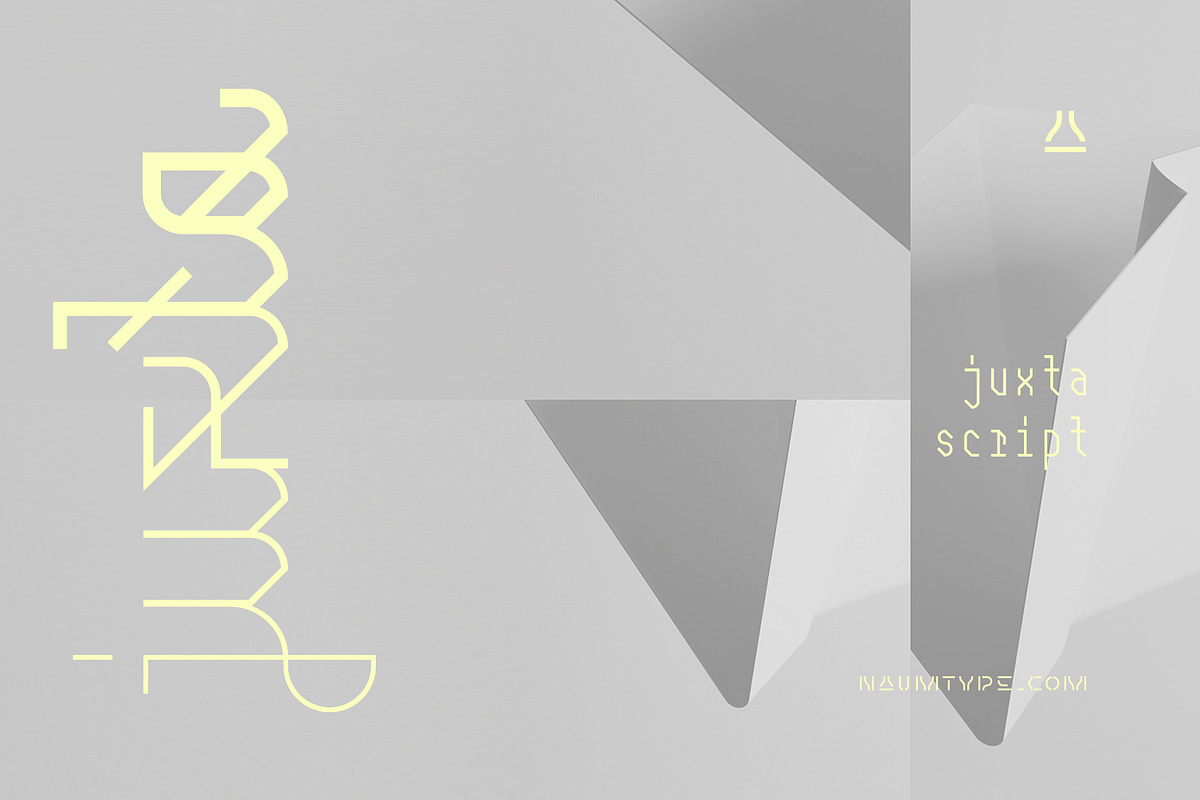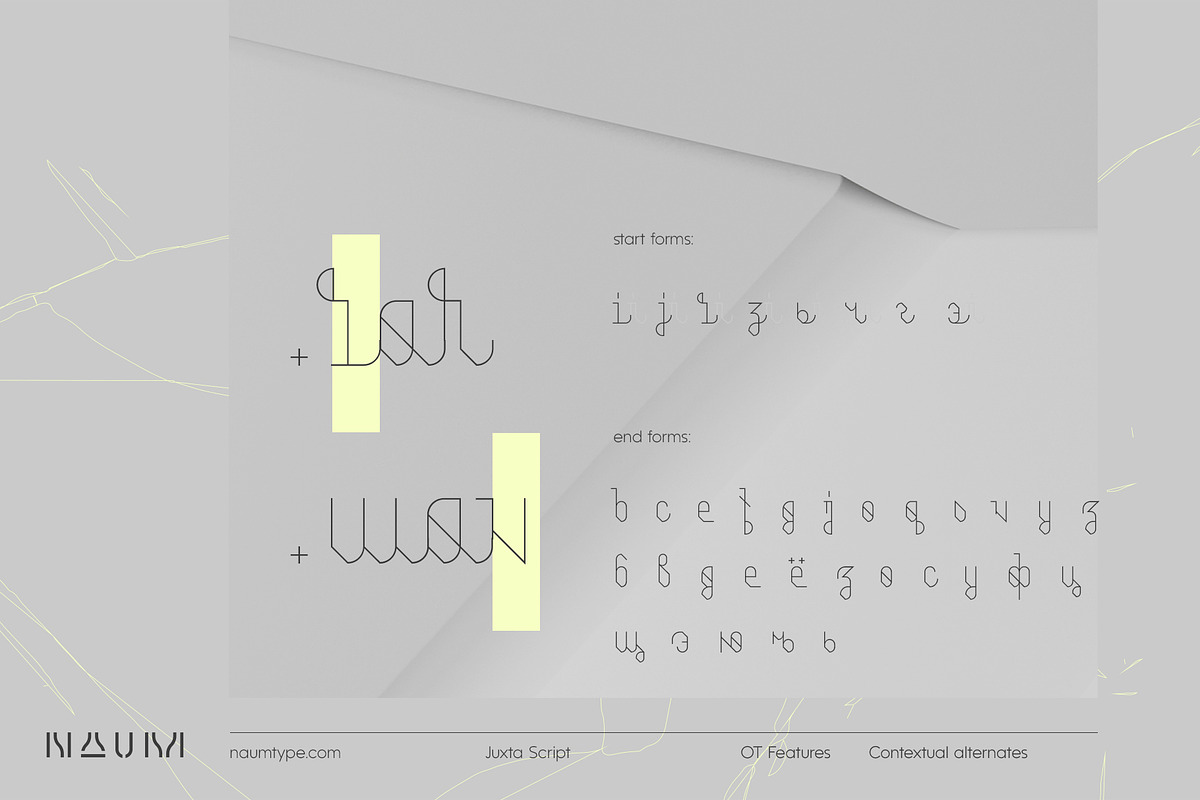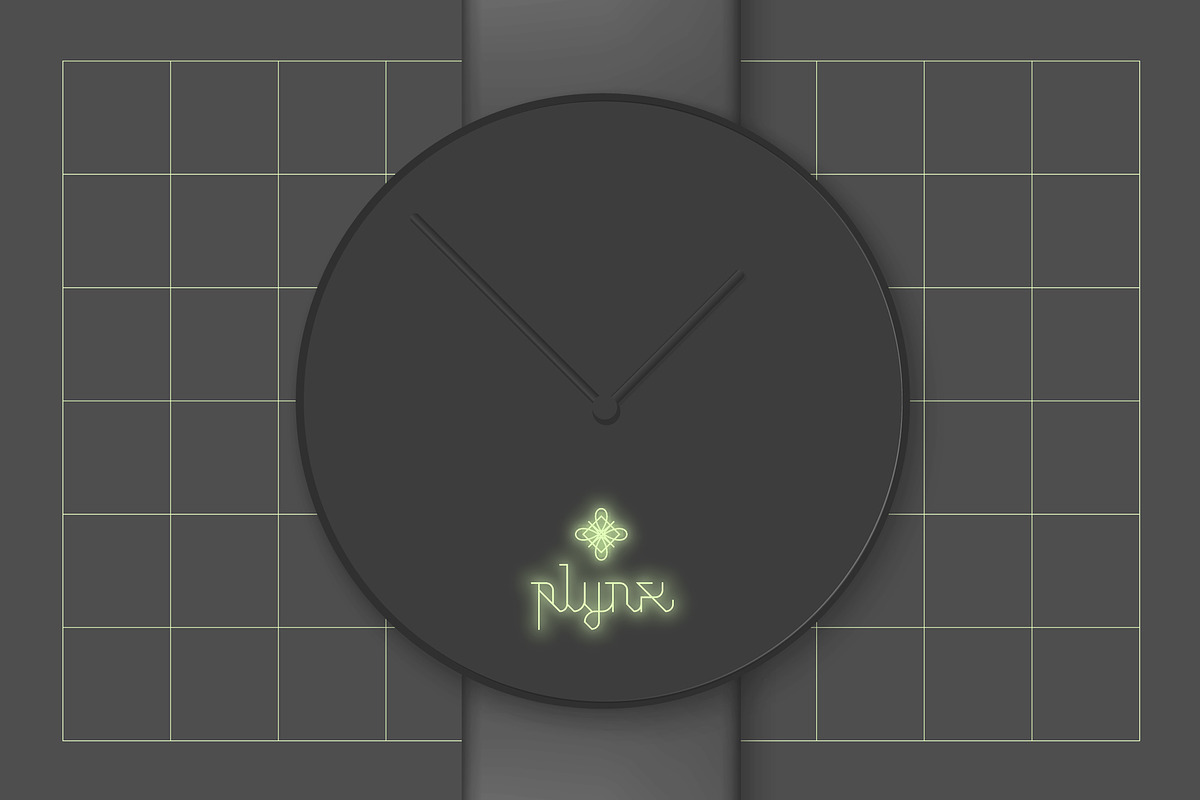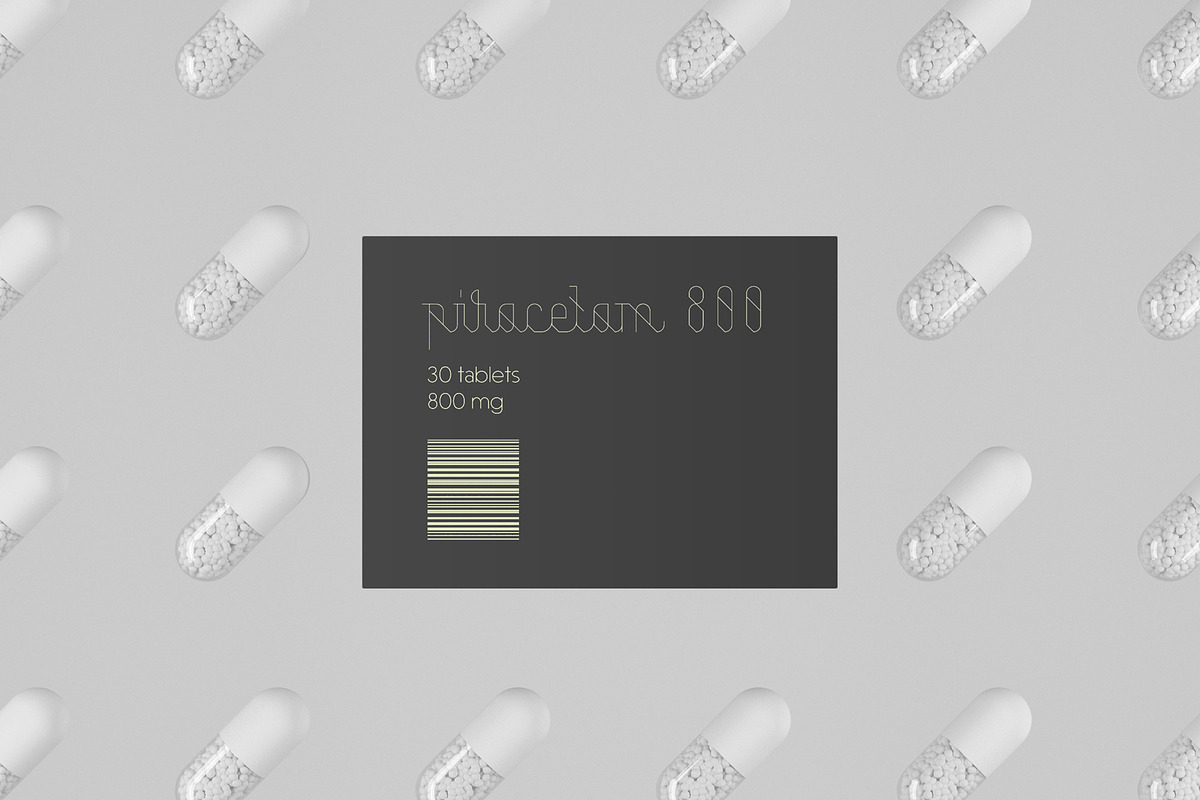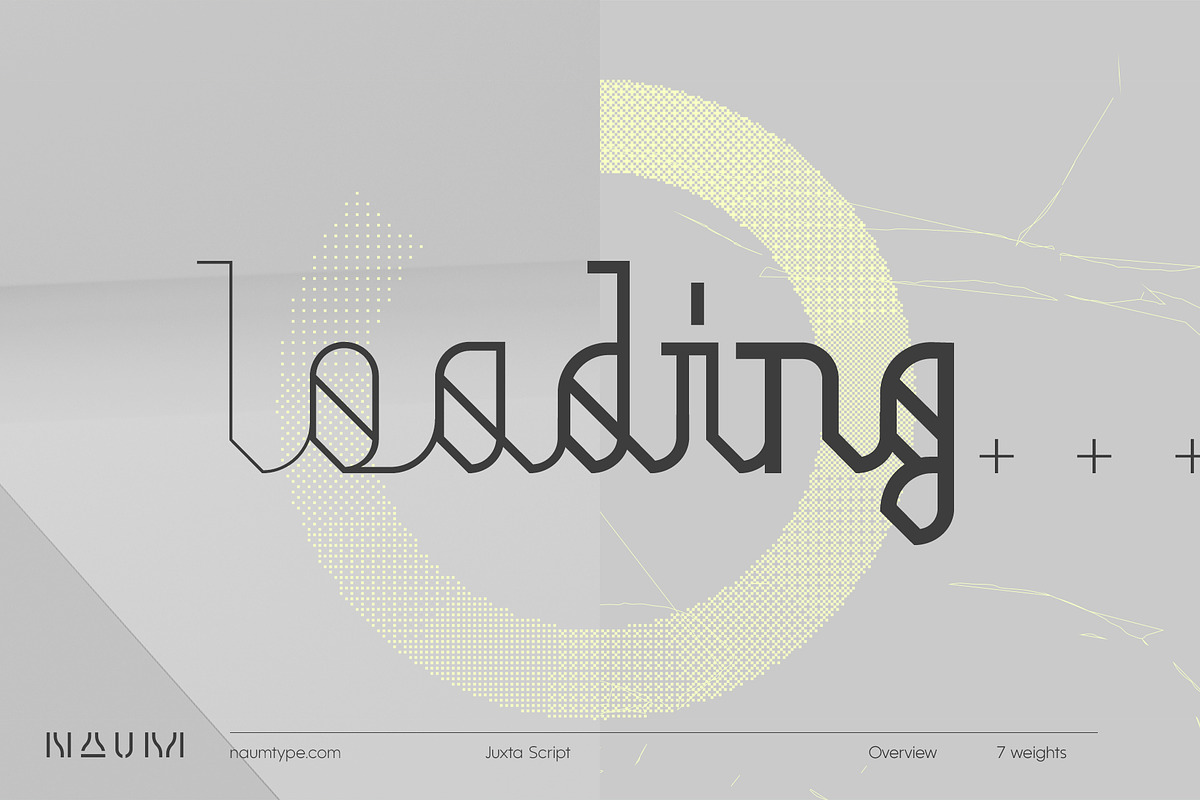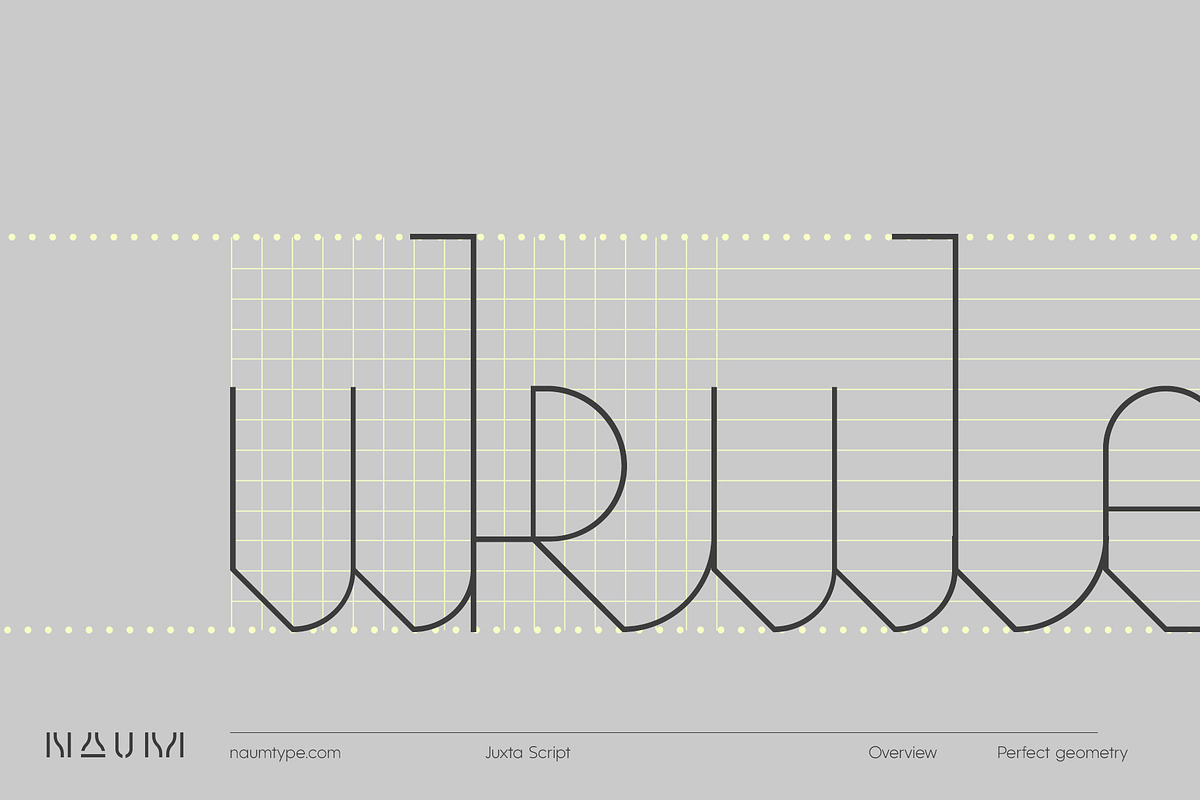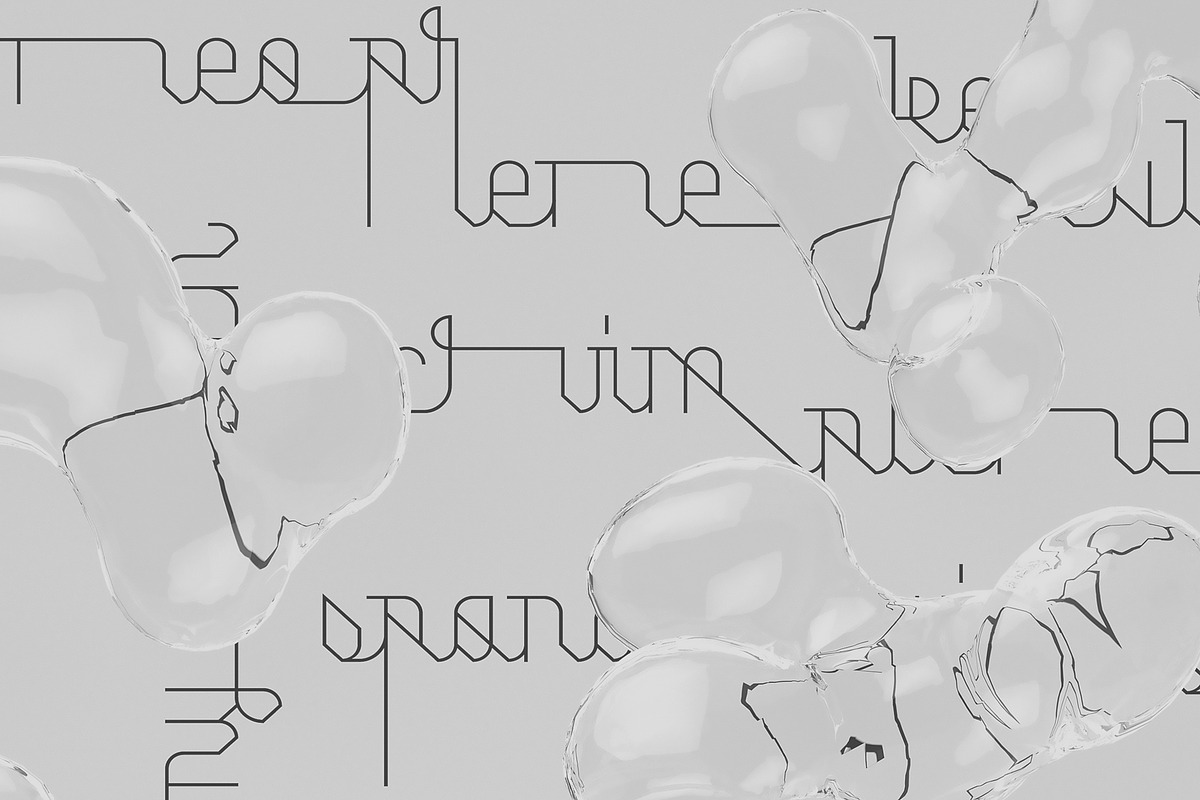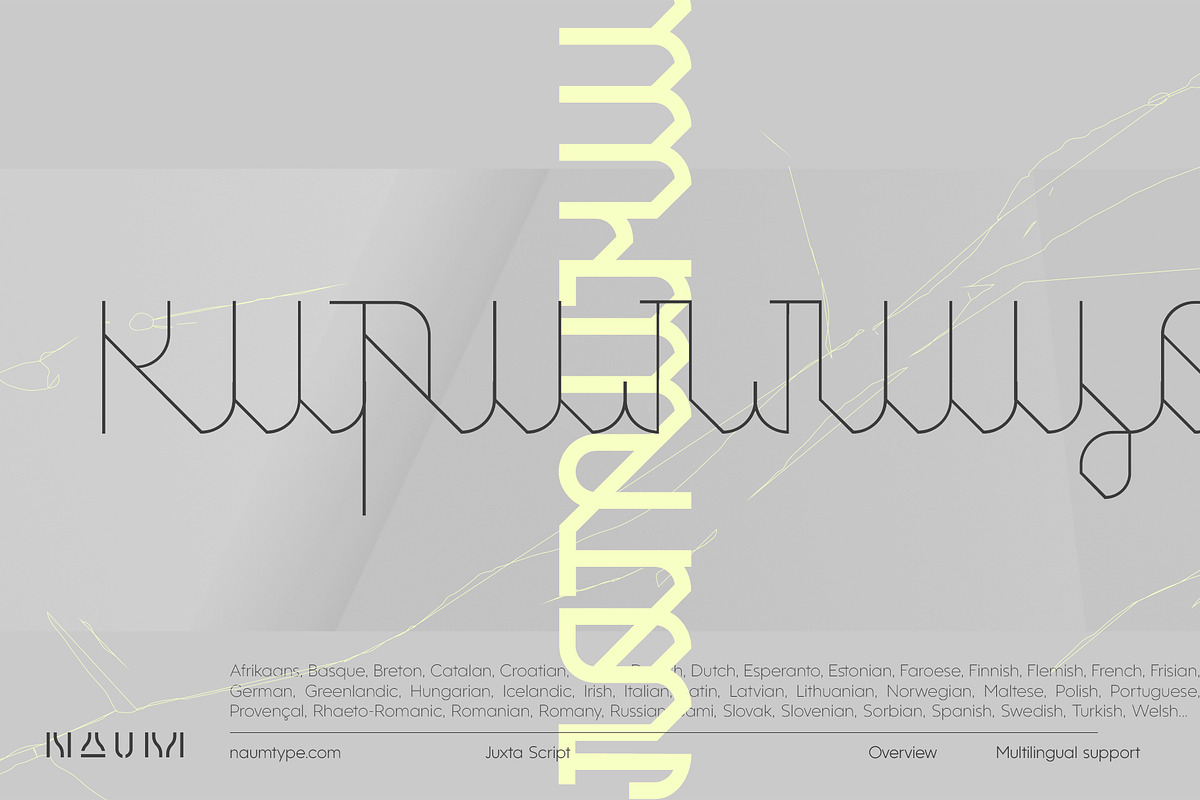
Juxta Script | 7 fonts
Juxta Script is a unique geometric monolinear script family, inspired by the monospaced font aesthetics and Scandinavian design.
Juxta (short for juxtaposition) composes two very different styles of font: monospaced sans for programming and monolinear script. The ideal grid geometry and certain decorative elements, such as cross out letters, give Juxta the spirit of Nordic minimalistic design.
start forms and end forms of letters for perfect word composition
ligatures and alternatives for better adhesion
stylistic alternatives
Languages Supported: Latin Extended A (Western and Central European languages), Cyrillic (Russian, Ukranian, etc.)